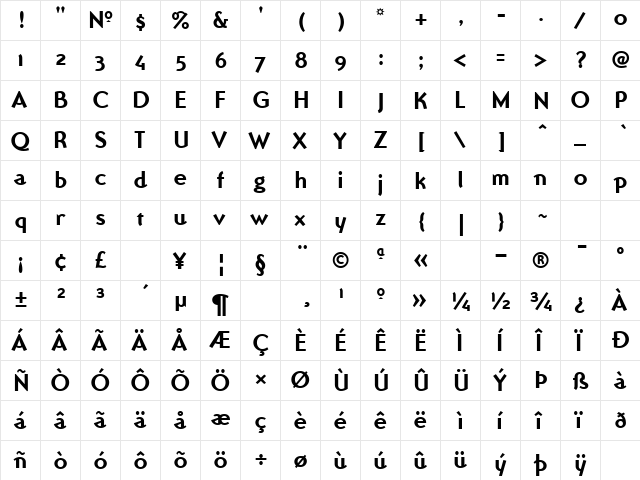
OttomatBold Regular
Design Context for OttomatBold Typeface
OttomatBold is a composed and adaptable typeface that performs quietly and consistently across a wide range of design contexts. The heavy weight commands attention and anchors typographic hierarchies.